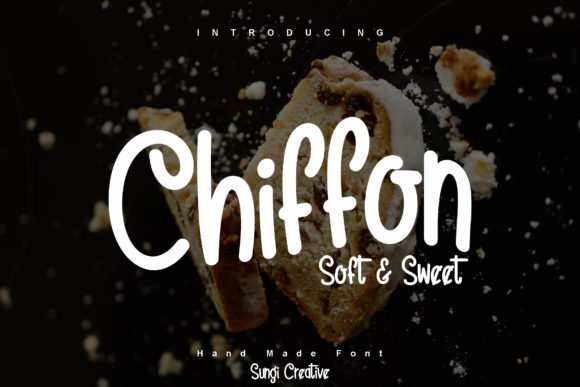
Introducing Chiffon Font: The Ultimate Choice for Friendly and Charming Designs
In the world of typography, fonts play a crucial role in conveying the tone and personality of a brand. A well-chosen font can elevate your brand’s visual identity and make it more relatable to your target audience. If you’re looking for a font that exudes warmth, friendliness, and charm, look no further than Chiffon Font. In this article, we’ll explore the features and benefits of Chiffon Font, and why it’s the perfect fit for your logos, branding, social media, and DIY projects.
What is Chiffon Font?
Chiffon Font is a beautiful, handwritten font that boasts an incredibly friendly feel. Its bold and charming design makes it an excellent choice for a wide range of applications, from logos and branding to social media graphics and crafty DIY projects. The font’s unique character and personality shine through in its elegant, cursive strokes and carefully crafted letterforms.
Key Features of Chiffon Font
- Handwritten Design: Chiffon Font features a genuine, handwritten look that adds a personal touch to your designs.
- Bold and Charming: The font’s bold design ensures that your text stands out, while its charming personality makes it relatable and engaging.
- Friendly Feel: Chiffon Font’s friendly feel makes it perfect for brands that want to convey a sense of approachability and warmth.
- Versatile: This font is suitable for a wide range of applications, including logos, branding, social media graphics, and DIY projects.
Perfect Uses for Chiffon Font
Chiffon Font’s versatility and charm make it an excellent choice for various design projects. Here are some of the perfect uses for Chiffon Font:
- Logos and Branding: Create a memorable and engaging brand identity with Chiffon Font. Its bold and charming design ensures that your logo stands out and leaves a lasting impression.
- Social Media Graphics: Elevate your social media presence with Chiffon Font. Use it to create engaging graphics, posts, and stories that resonate with your audience.
- Crafty DIY Projects: Add a personal touch to your DIY projects with Chiffon Font. Use it to create unique and charming labels, signs, and decorations.
Benefits of Using Chiffon Font
Using Chiffon Font in your designs offers several benefits, including:
- Unique Identity: Chiffon Font helps you create a unique and distinctive visual identity that sets you apart from the competition.
- Emotional Connection: The font’s friendly and charming personality helps you establish an emotional connection with your audience.
- Versatility: Chiffon Font’s versatility ensures that you can use it across various design projects and applications.
- Ease of Use: The font is easy to read and use, making it perfect for designs that require a clear and concise message.
Tips for Using Chiffon Font
To get the most out of Chiffon Font, follow these tips:
- Pair it with Neutral Colors: Pair Chiffon Font with neutral colors to create a balanced and harmonious design.
- Experiment with Sizes: Experiment with different font sizes to create visual hierarchy and emphasis.
- Add Decorative Elements: Add decorative elements, such as illustrations or graphics, to enhance the font’s charm and personality.
In conclusion, Chiffon Font is a beautiful, handwritten font that offers a unique blend of charm, friendliness, and versatility. Its bold design and carefully crafted letterforms make it perfect for logos, branding, social media graphics, and DIY projects. By incorporating Chiffon Font into your designs, you can create a unique visual identity that resonates with your audience and sets you apart from the competition.